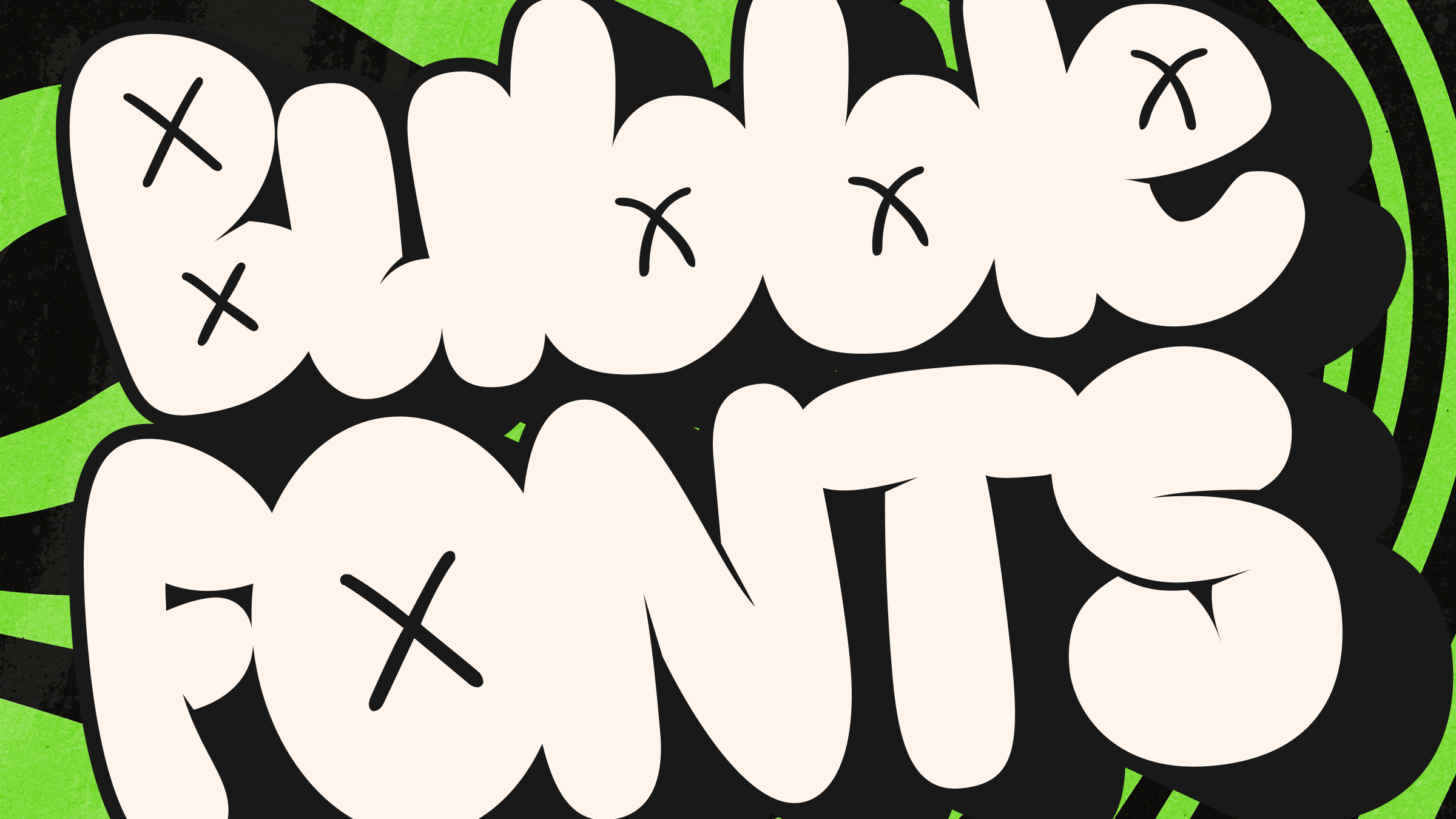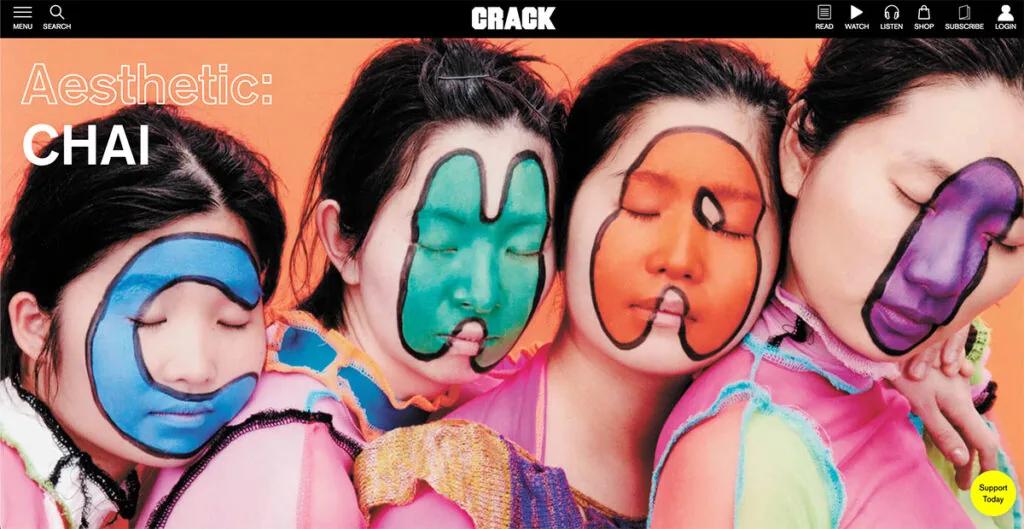
Bubble fonts are back! But is the hype around them about to pop?
Don't miss out on the bubble font trend! Learn how to incorporate this playful typography style into your designs and stay ahead of the curve.
Born on the streets of New York in the 1960s and 70s, bubble writing is now back in business. Global brands and indie makers are all over the bubble text look, but is this design trend bound to pop?
Get ready to explore the origins of bubble fonts and their modern-day applications. We’ll examine why they resonate so strongly with today’s audiences and whether they’re here to stay. So grab your favorite marker (or fire up your design software) and dive headfirst into the wonderful world of bubble fonts!
The origins of bubble fonts (and a quick history of graffiti)
Bubble fonts and bubble writing—the colorful balloon-like letters that look like they’re about to burst—are everywhere right now. This playful font has been embraced by communities worldwide in branding and logos, jewelry design, drag posters, and sweet shops.
The bubble font phenomenon started on the streets of New York 50 years ago. And amazingly, the handwriting style can all be traced back to one man: Phase Two.
Phase Two, also known as Lonny Wood, was a hip-hop pioneer, a legendary aerosol artist, and the founding father of bubble writing. In 1972, he started tagging his name in spray paint across the Bronx in a curved bubble style that he called ‘softies’. His graffiti bubble letters were enormous, expressive, and eye-catching. His designs imitated light bouncing off the letters, giving them a subtle 3D feel.
Phase 2 pioneered several different bubble styles, such as bubble cloud, phasemagorical phantastic, and bubble drip.
Inspired artists began to imitate his graffiti letter designs, and bubble graffiti soon began popping up across New York City. These old-school graffiti bubble letters flourished because they were very fast to create. In a few confident arm strokes, you could quickly write a colossal bubble letter and then be on your way.
The artists creating these designs were predominantly Black and Hispanic young people, and this graffiti bubble style (as well as graffiti more broadly) gave them a creative avenue to express themselves and come together at a time when America was experiencing substantial social unrest.
How bubble writing popped into the mainstream
Phase 2 began designing flyers and logos for those in rap and hip-hop circles, and soon, this counterculture bubble style started to pop up in the mainstream. This bubble boom can also be connected back to the typography of the 60s with its love of curved, soft, and joyful designs.
From comics and album covers to global branding, bubble fonts quickly became trendy. For brands whose target audiences were kids and young people, the playfulness of bubble writing was the go-to. New (and now iconic) brands designed their first logos in the bubble style, such as Hubba Bubba in 1979 and Ty in 1986.
Lego, one of the biggest toy brands on the planet, redesigned its logo in 1972 to incorporate a softer, simpler bubble font—and still uses it today!
This bubble mania grew in the 1980s and 90s, with toy and confectionary brands using this marshmallow-friendly type to attract younger audiences.
This type is used in the Koosh Ball logo and the AirHeads design, as well as across kids’ TV shows, such as Rainbow Brite and the Teletubbies.
Bubble writing is so often found in teens’ notebooks and diaries (especially when writing your crush’s name) that it makes sense that this playful, dreamy font was used so widely to appeal to young audiences.
When the bubble finally popped
Over the 90s, the trend of the signature soft lines of bubble text became square and more angular. Could this be from the growing influence of grunge, punk, and indie music? Green Day’s 1994 album Dookie would suggest so.
The rapid development of technology also inspired sleeker, futuristic, computerized design aesthetics—the goofiness of bubble text wasn’t on trend anymore. The arrival of new design tools and platforms allowed people to create more complicated and diverse typography.
Although bubble fonts could still be found wrapped around chewing gum, on toys, and in playful logos, the bubble trend officially popped in the 1990s as a new wave of art, music, and design began to take center stage.
The bubble renaissance
2024 saw something of a bubble revival: suddenly, retro bubble fonts began popping up everywhere again. From motivational social media posts to indie brand logos, this playful, cheeky font is back—but in a new style for a new era.
Today’s bubble font trend is more hyper-realistic than the original 1970s old-school graffiti type. The current trend leans heavily into a plastic, balloon-inspired aesthetic, a design style easily accessible to millions thanks to new AI tools integrated into editing platforms. It’s now easy, free, and fast to feed the robot gods a prompt and be delivered the most eyeball-massaging bubble font imaginable.